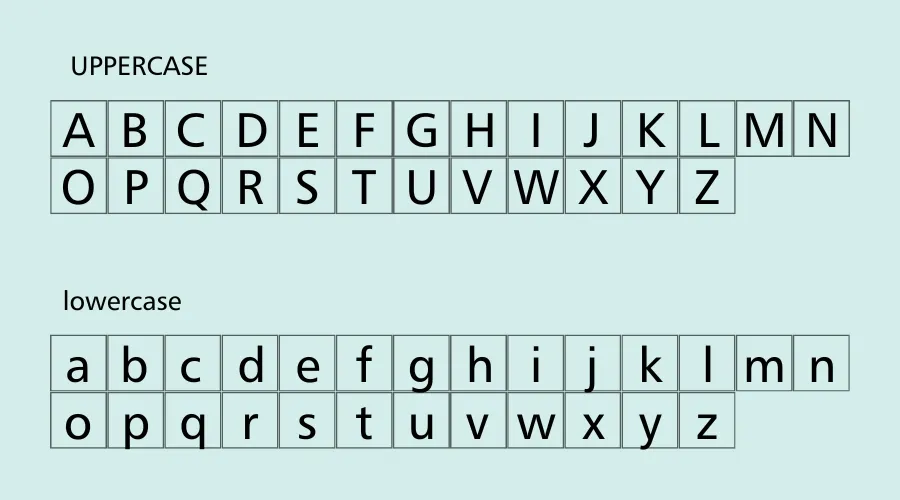
About Humanist 777 Bt Font
Adrian Frutiger designed Humanist 777 Bt Font it is a sans serif style a combination of sharp and rounded corners in small caps making the font unconventional for users. There's no question that it's an eye-catching font, and it's highly readable style.